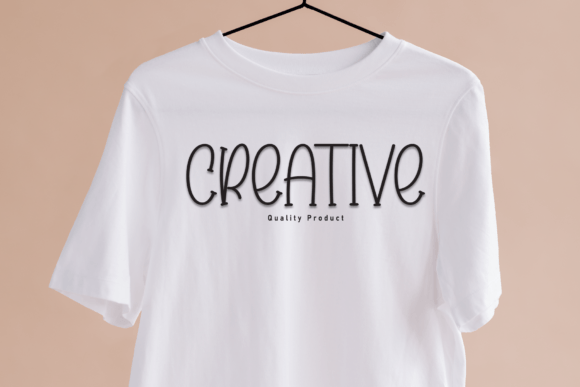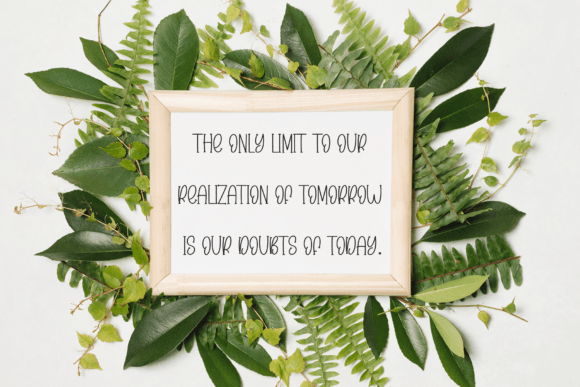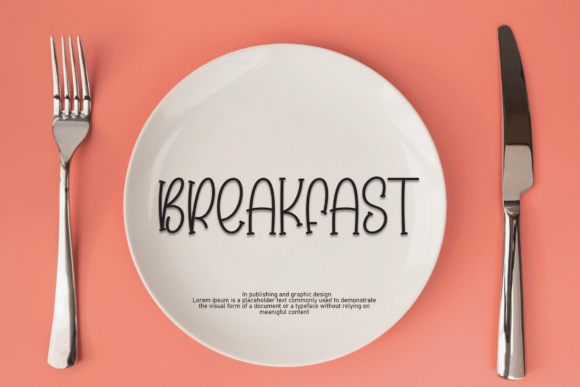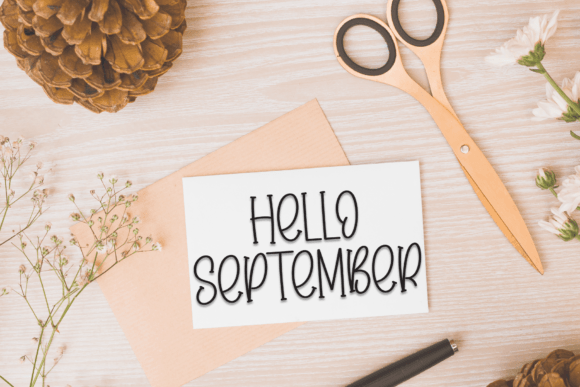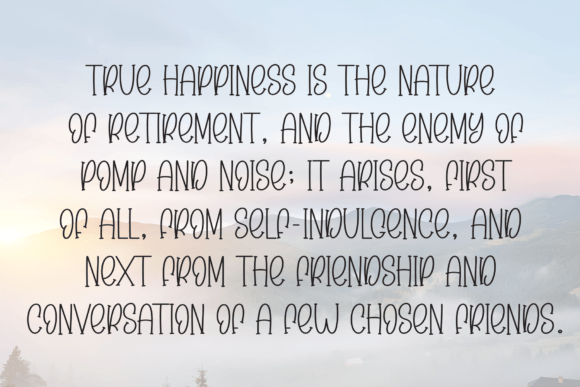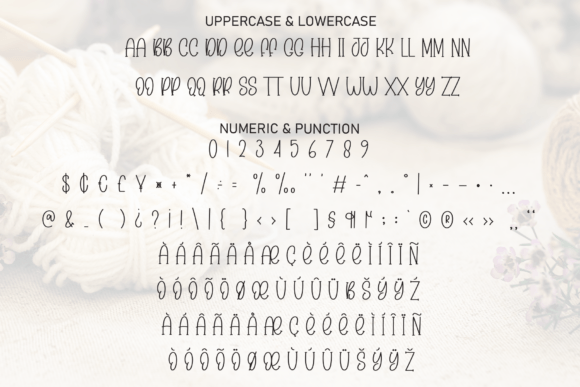
Crochet Vintage Font: A Charming Handwritten Style for Your Creative Projects
Crochet Vintage Font is a delightful handwritten font that exudes warmth and personality. Its unique, playful style is reminiscent of a bygone era, evoking feelings of coziness and nostalgia. This charming font is perfect for crafty enthusiasts, designers, and anyone looking to add a personal touch to their projects.
The Charm of Crochet Vintage Font
Crochet Vintage Font is a carefully crafted font that looks like it was made with love. Its distinctive, hand-written style gives it a one-of-a-kind charm that sets it apart from more traditional fonts. The letters are playful, with subtle imperfections that add to their character. This font is perfect for creating projects that require a personal touch, such as:
- Crafting and DIY tutorials
- Packaging and branding for handmade products
Why Choose Crochet Vintage Font?
There are many reasons why Crochet Vintage Font is a great choice for your creative projects. Here are just a few:
- Unique style: Crochet Vintage Font has a distinctive, hand-written style that will set your projects apart from others.
- Easy to read: Despite its playful style, Crochet Vintage Font is easy to read, making it perfect for use in a variety of contexts.
- Versatile: This font can be used for a wide range of projects, from crafting and DIY tutorials to wedding invitations and social media graphics.
- Personal touch: Crochet Vintage Font adds a personal touch to your projects, making them feel more handmade and special.
How to Use Crochet Vintage Font
Crochet Vintage Font is easy to use and can be incorporated into a variety of projects. Here are a few ideas to get you started:
- Crafting tutorials: Use Crochet Vintage Font to add a personal touch to your crafting tutorials, making them feel more like a handmade guide.
- Wedding invitations: Add a touch of elegance and whimsy to your wedding invitations with Crochet Vintage Font.
- Social media graphics: Use Crochet Vintage Font to create eye-catching social media graphics that will help your brand stand out.
- Packaging and branding: Add a personal touch to your packaging and branding with Crochet Vintage Font, making your products feel more handmade and special.
Tips for Pairing Crochet Vintage Font with Other Fonts
Pairing Crochet Vintage Font with other fonts can add visual interest and create a unique look. Here are a few tips for pairing fonts:
- Pair with a sans-serif font: Pairing Crochet Vintage Font with a sans-serif font, such as Arial or Helvetica, can create a nice contrast and make your text more readable.
- Pair with a script font: Pairing Crochet Vintage Font with another script font, such as Pacifico or Great Vibes, can create a beautiful, handwritten look.
- Experiment with font sizes: Experimenting with different font sizes can add visual interest and create a more dynamic look.
Crochet Vintage Font is a charming handwritten font that is perfect for crafty enthusiasts, designers, and anyone looking to add a personal touch to their projects. Its unique, playful style gives it a cozy, vintage feel that is sure to delight. With its ease of use and versatility, Crochet Vintage Font is a great choice for a wide range of projects, from crafting and DIY tutorials to wedding invitations and social media graphics.
So why not give Crochet Vintage Font a try? With its charming style and ease of use, it’s sure to become a favorite in your design toolkit.